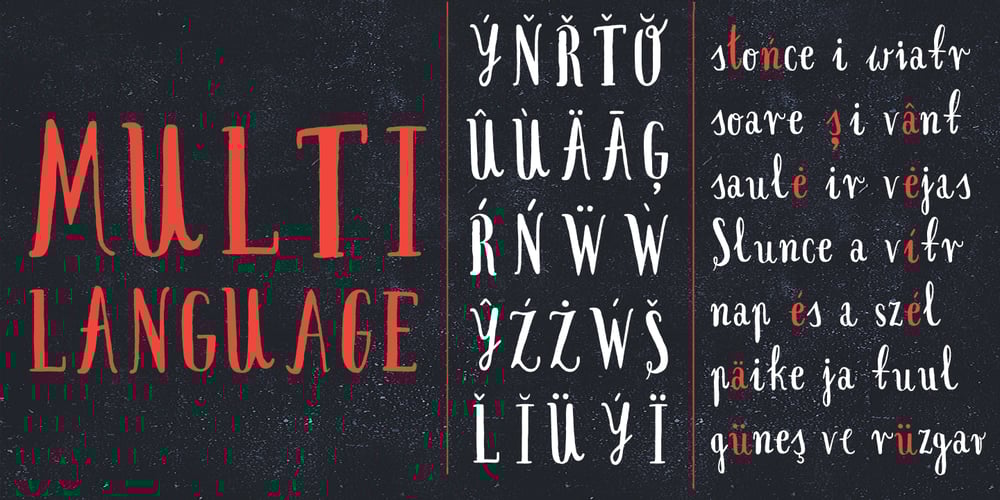
Avocado Font Family was designed by published by Justyna Sokolowska. Avocado contains 1 styles and family package options. Avocado is handwritten font. It’s very suitable for the fashion industry and culinary. This font is crazy but readable, so it can be used for large amounts of text.